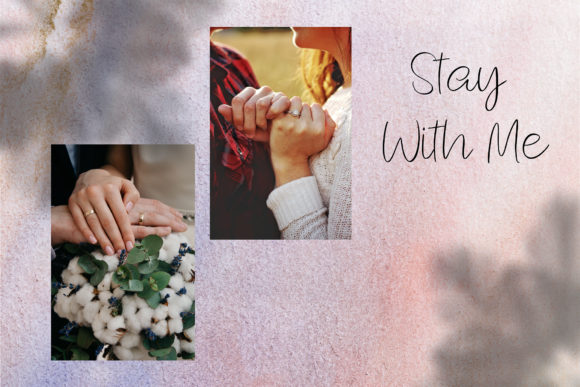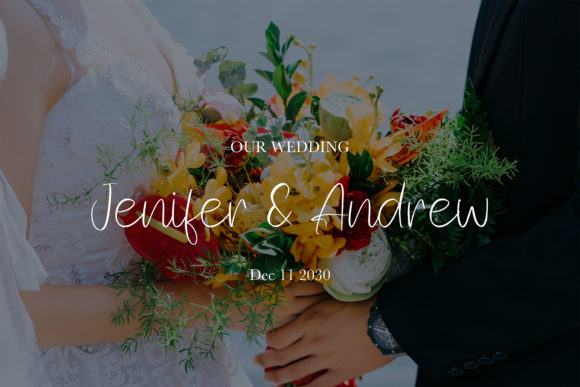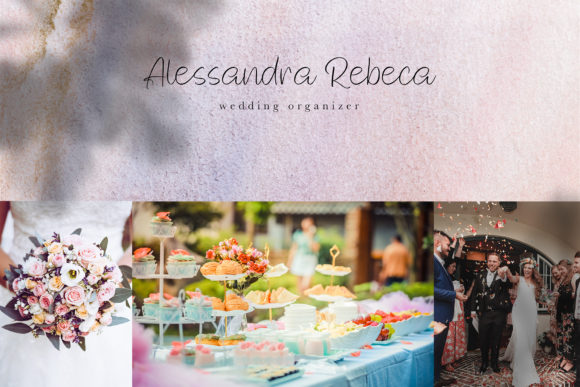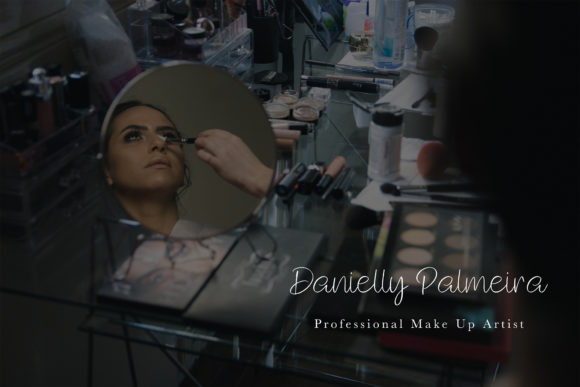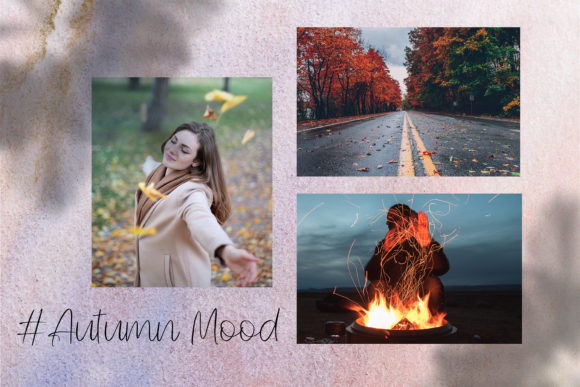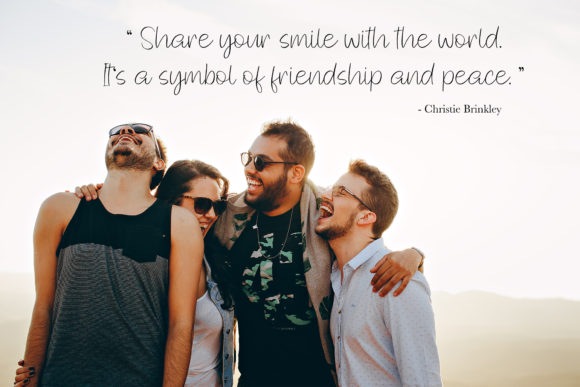
Discover the Elegance of Blodeyn Font: Elevate Your Designs with a Sweet and Contemporary Script
In the world of typography, fonts play a crucial role in bringing designs to life. Among the myriad of fonts available, Blodeyn stands out as a sweet and elegant script that can transform any design idea into a true standout. With its contemporary charm, Blodeyn has become a go-to choice for designers and crafters looking to add a touch of sophistication to their projects.
The Unique Charm of Blodeyn Font
Blodeyn Font is characterized by its flowing, cursive strokes that exude elegance and refinement. Its sweet and gentle appearance makes it perfect for designs that require a touch of warmth and personality. Whether you’re working on a branding project, a wedding invitation, or a craft project, Blodeyn’s unique charm is sure to captivate your audience.
Key Features of Blodeyn Font
- Elegant Script: Blodeyn boasts a beautiful, flowing script that adds a touch of sophistication to any design.
- Contemporary Charm: With its modern and fresh feel, Blodeyn is perfect for designs that require a contemporary twist.
- Versatile: Blodeyn can be used for a wide range of projects, from branding and advertising to crafting and DIY projects.
- Easy to Read: Despite its elegant appearance, Blodeyn is easy to read, making it perfect for body text and headlines.
How to Use Blodeyn Font in Your Designs
Blodeyn Font can be used in a variety of design projects, including:
- Branding and Logo Design: Use Blodeyn to create a sophisticated and memorable brand identity.
- Wedding Invitations and Stationery: Add a touch of elegance to your wedding invitations, stationery, and other paper crafts.
- Crafting and DIY Projects: Use Blodeyn to add a personal touch to your crafting and DIY projects, such as handmade cards, gift tags, and scrapbooking.
- Digital Designs: Use Blodeyn in your digital designs, such as social media graphics, blog posts, and website headers.
Tips for Pairing Blodeyn Font with Other Fonts
Pairing Blodeyn with other fonts can create a unique and visually appealing design. Here are some tips for pairing Blodeyn with other fonts:
- Pair with Sans-Serif Fonts: Pair Blodeyn with sans-serif fonts, such as Arial or Helvetica, for a modern and fresh look.
- Pair with Serif Fonts: Pair Blodeyn with serif fonts, such as Times New Roman or Georgia, for a more traditional and elegant look.
- Use Contrasting Fonts: Use contrasting fonts to create visual interest and hierarchy in your design.
Blodeyn Font is a sweet and elegant script that can elevate any design idea into a true standout. With its contemporary charm and versatile features, Blodeyn is perfect for designers and crafters looking to add a touch of sophistication to their projects. Whether you’re working on a branding project, a wedding invitation, or a craft project, Blodeyn is sure to inspire and delight.